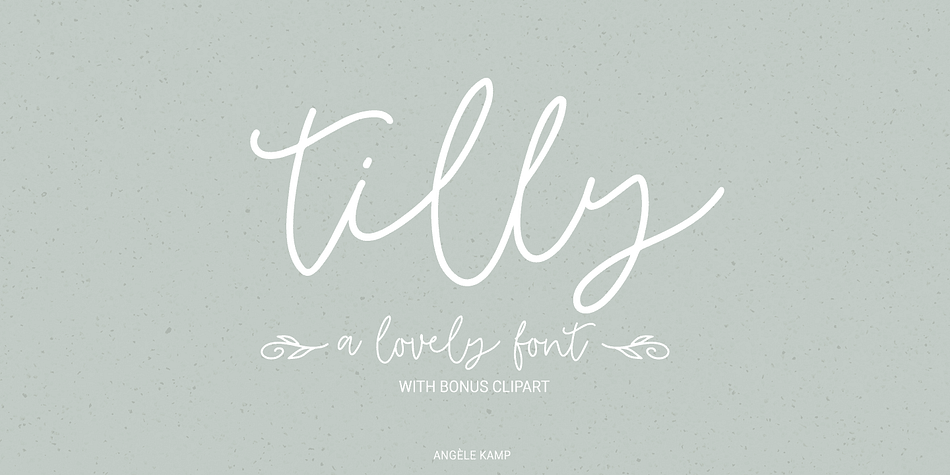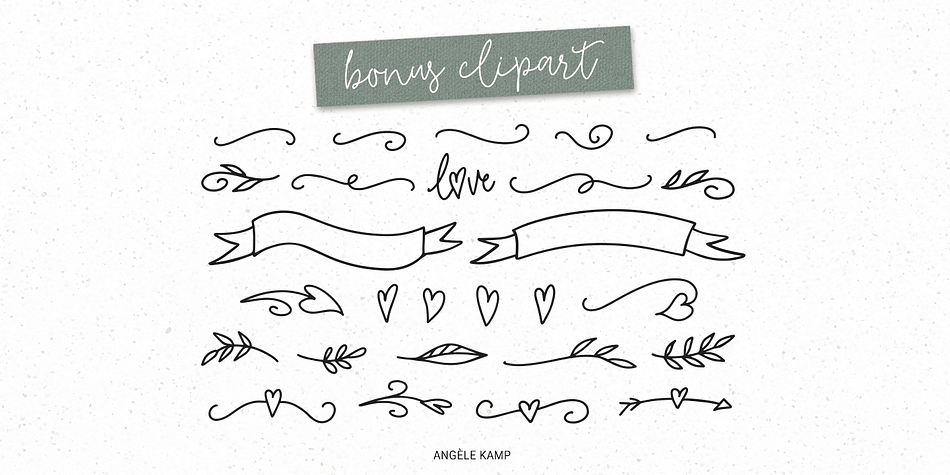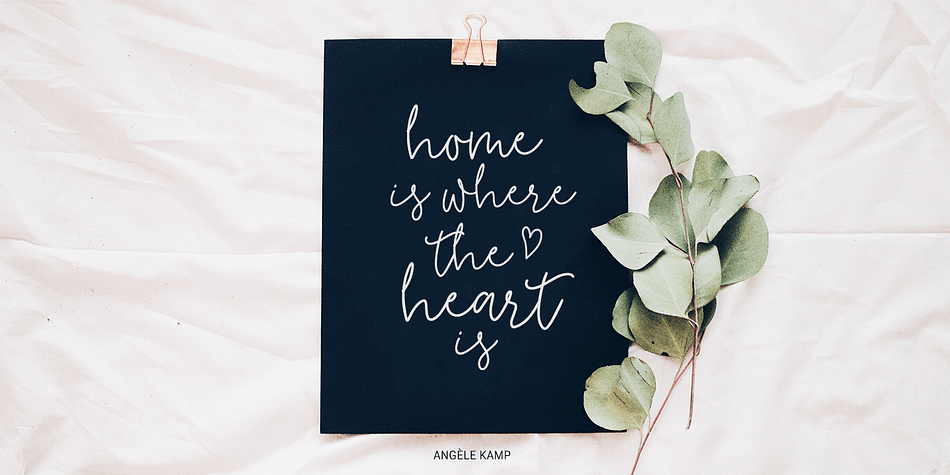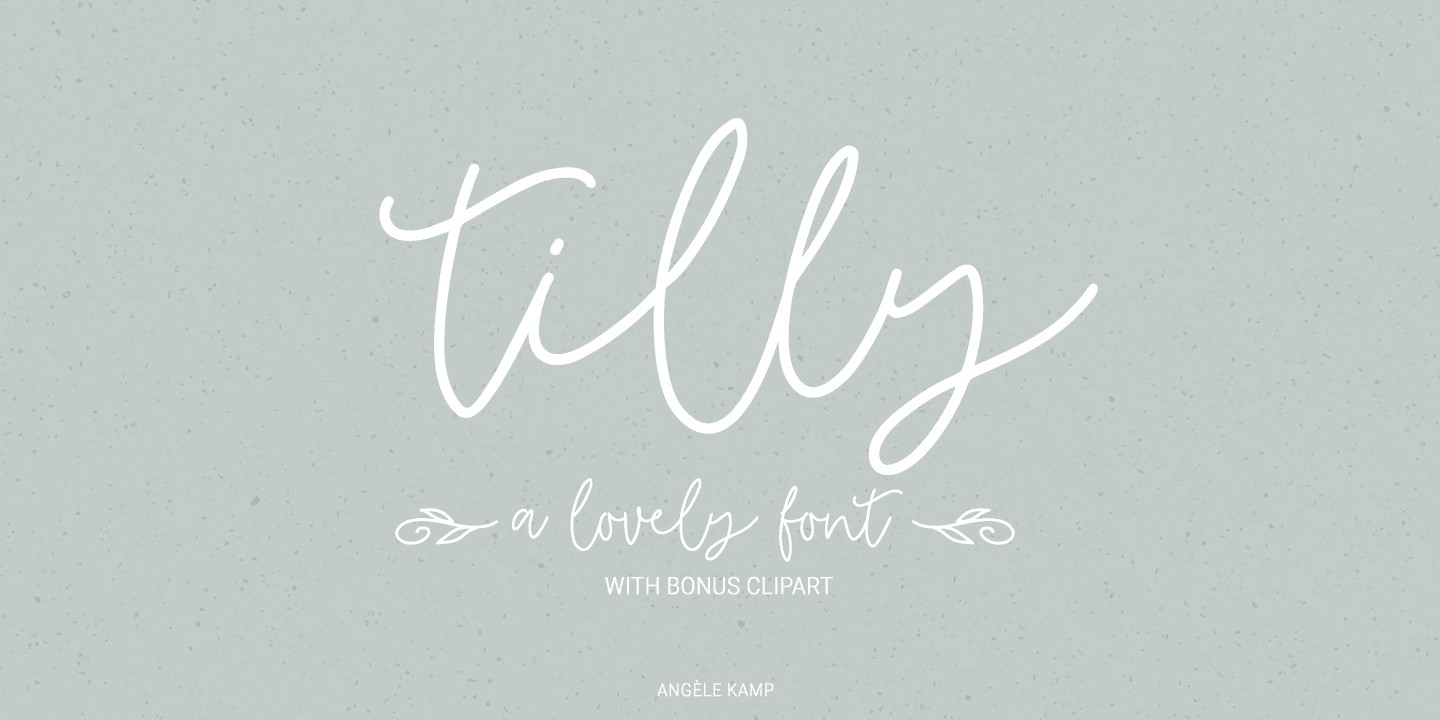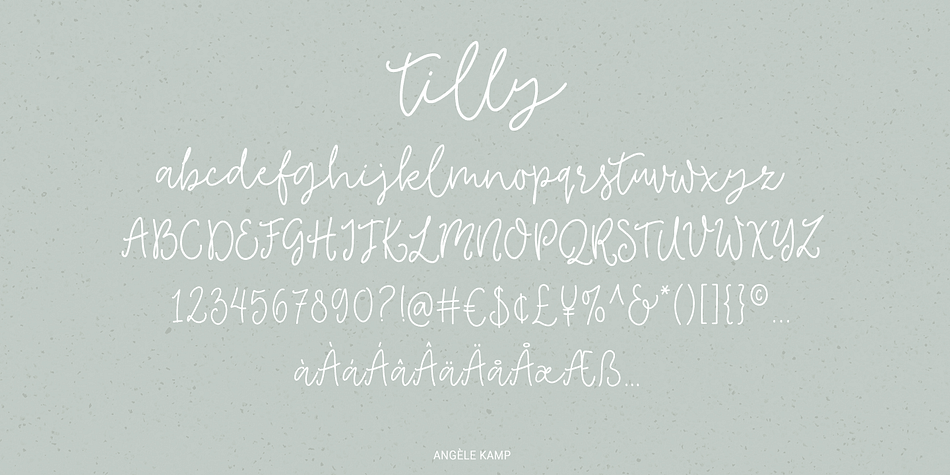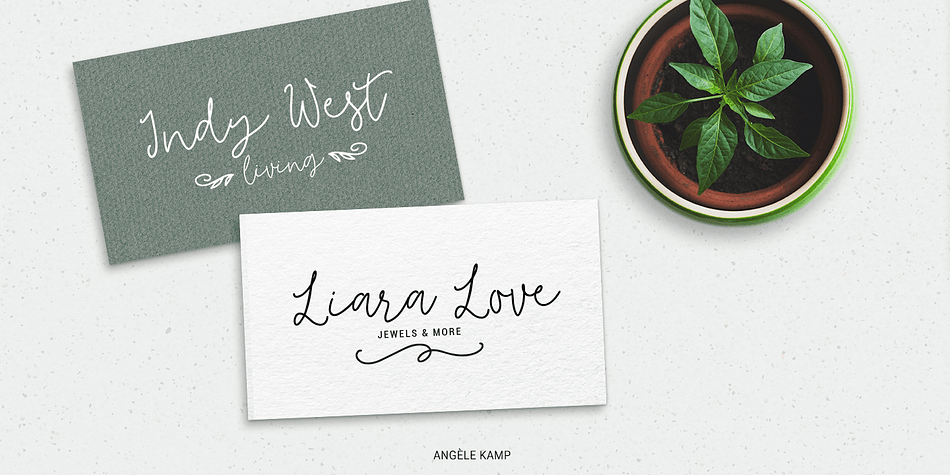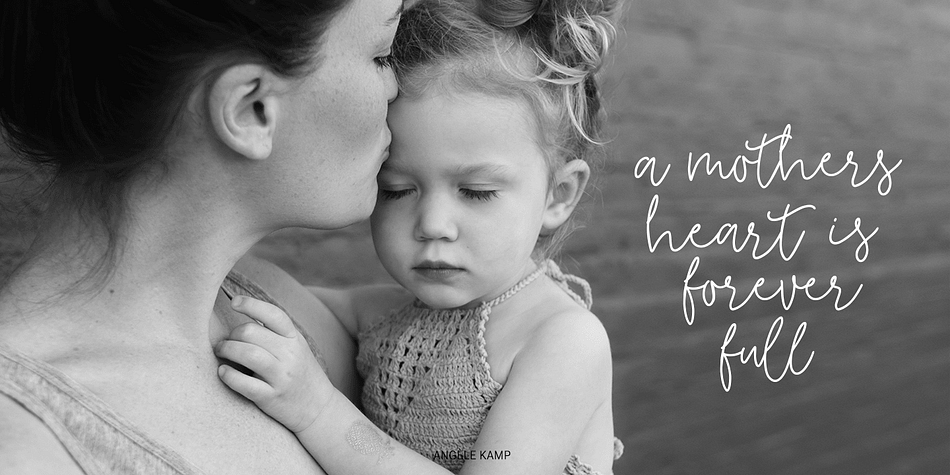
Designed by Angèle Kamp, Tilly is a multiple classification font family. This typeface has two styles and was published by Angèle Kamp.
Tilly is a lovely font with a romantic, whimsical feel. This gorgeous font will look lovely on wedding invites, logo’s, quotes and it has nice smooth lines which makes it perfect for crafters and cutting machines.
Styles | Hand Drawn, Modern Calligraphy, Script, Dingbat |
Designer | Angèle Kamp |